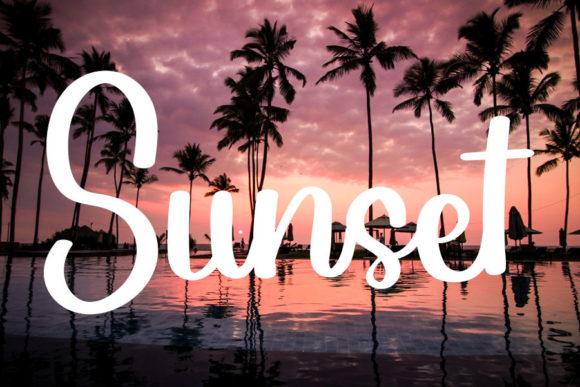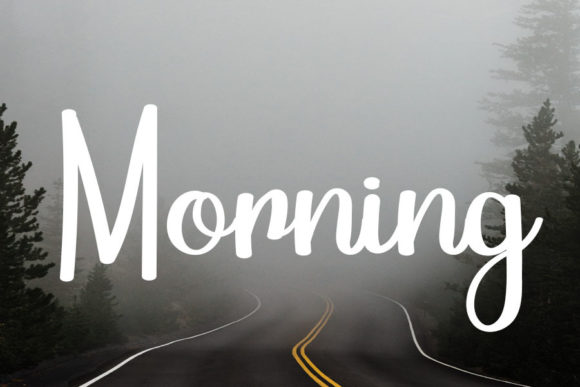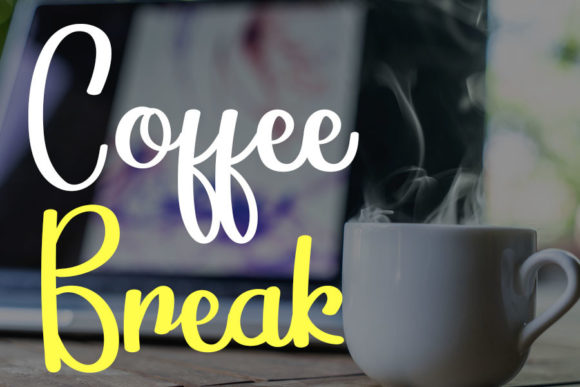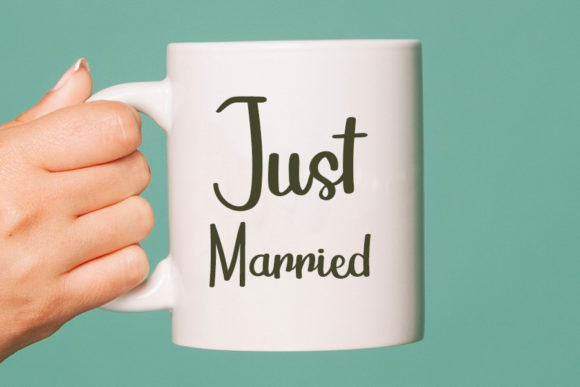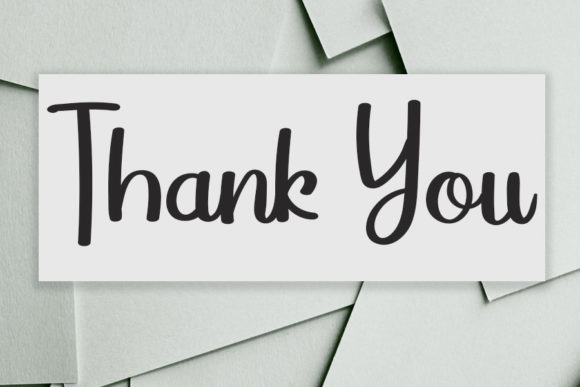
Beautiful Girl Font
About Beautiful Girl Font
Beautiful Girl is a chic and flowing script font. Its sweet and full of life style makes this font a wonderful choice for brightening up your designs.